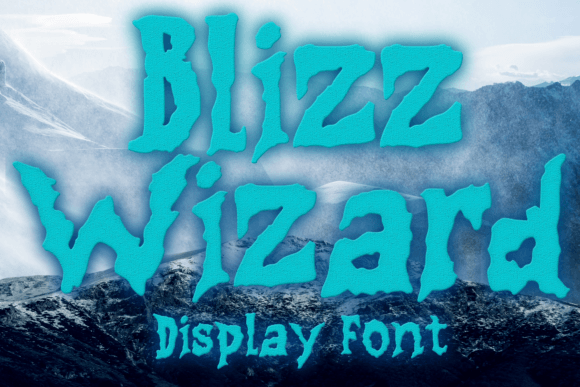
Immerse yourself in a world of enchantment and adventure with Blizz Wizard Font, a mesmerizing display font that will cast a spell on your designs. Created by the ingenious MVMET, this font is a masterpiece of ink-made handwritten artistry, meticulously crafted to evoke the essence of gaming, adventure, and boundless imagination.
Unleash your creativity and let Blizz Wizard Font transport you to realms of fantasy and wonder. Its captivating glyphs, reminiscent of ancient runes and mystical incantations, will add a touch of magic to any project you undertake. Whether you're designing t-shirts, clothing, or game posters, Blizz Wizard Font will elevate your creations to new heights of enchantment.
Step into the realm of Halloween festivities and let Blizz Wizard Font cast its spellbinding charm. From greeting cards to stickers, posters, and banners, this font will add a touch of spooky elegance to your Halloween-themed designs. Let your imagination run wild as you conjure up enchanting invitations, spellbinding decorations, and captivating party favors that will leave your guests spellbound.
With Blizz Wizard Font, the possibilities are limitless. Embrace the wizard's touch and let your designs radiate with an aura of magic and wonder. Transform ordinary projects into extraordinary masterpieces that captivate and inspire. Feel the magical vibes flowing through your veins as you create designs that resonate with the essence of adventure and enchantment.
Seize the opportunity to unleash your creativity and embark on a journey of artistic exploration with Blizz Wizard Font. Its versatility knows no bounds, making it the perfect companion for a wide range of design endeavors. Let your imagination soar, let your creativity ignite, and let Blizz Wizard Font guide you towards design excellence.